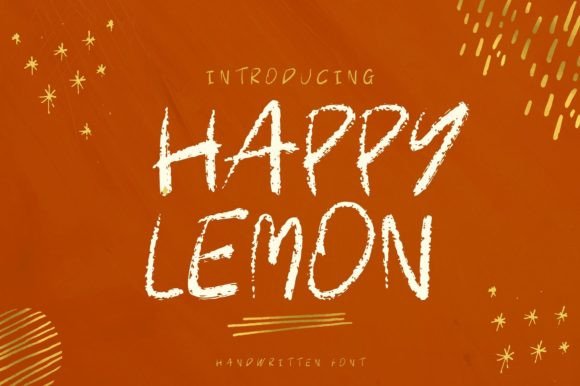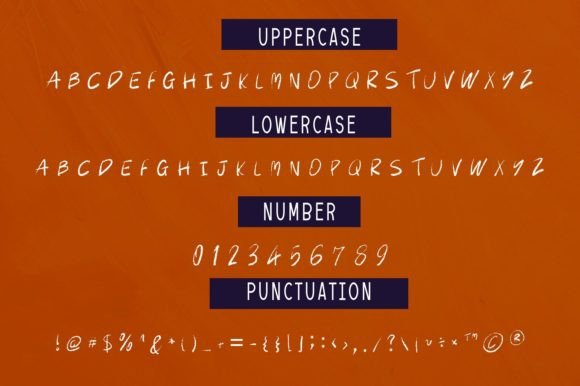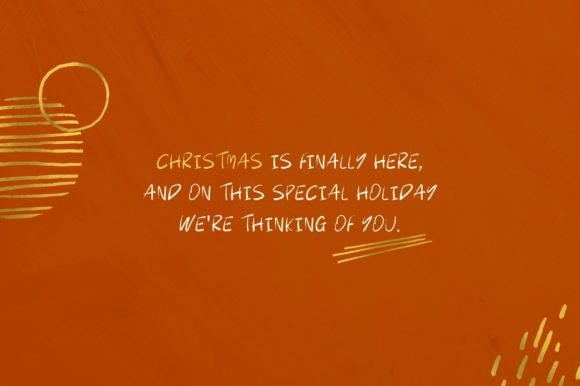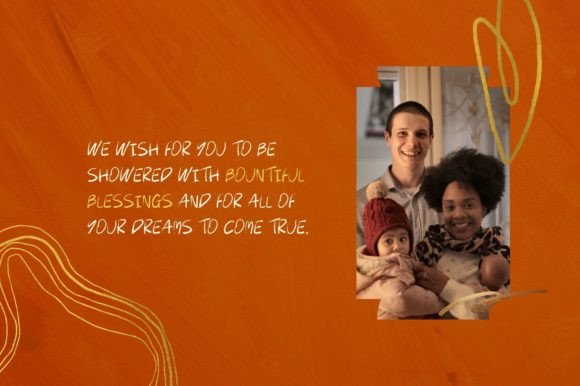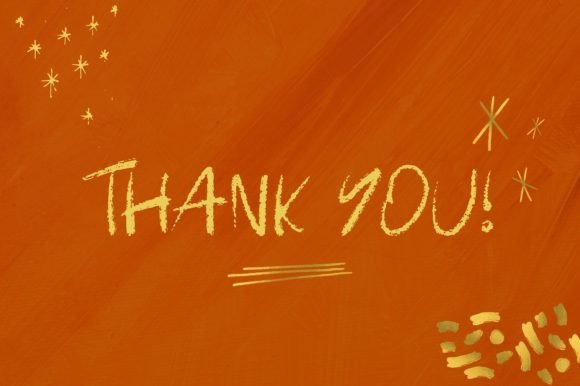
Happy Lemon Font
About Happy Lemon Font
Happy Lemon is a cute and festive handwritten font. The lightness of its characters makes it suitable for a wide range of design projects. It embodies playfulness and authenticity and is the perfect choice for all your favorite projects, or even for blog posts, logos, branding, ads, invitations, greeting cards, planners, photo albums, decorations, and much more. Add it to any of your designs, and enjoy the results!